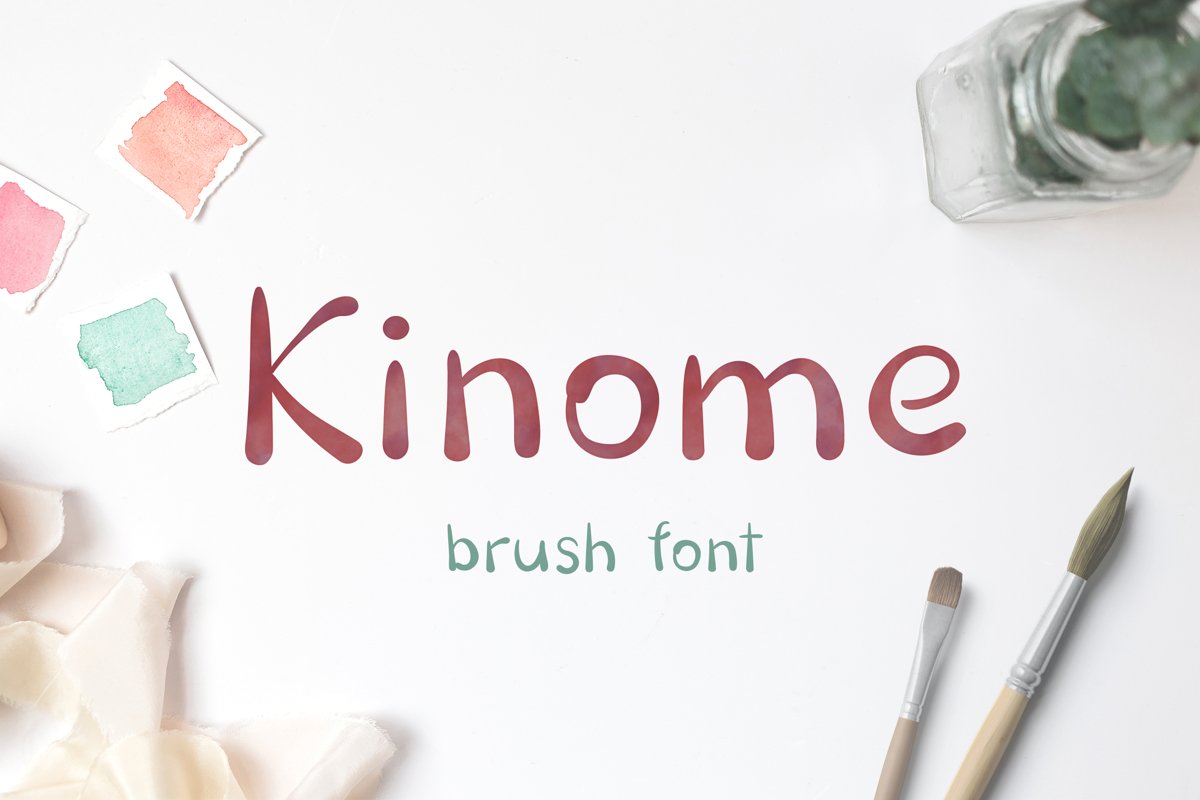
Kinome - Brush font
Kinome-Regular
Kinome is a decorative handwritten font. It is fun and contrast, made in brush calligraphy-style. Perfect for greeting cards, home decor, quotes, posters, kids accessories, DIY projects and much more!
Font consist of about 230 glyphs, including standart ligatures and multilanguage characters.
Kinome - Brush font